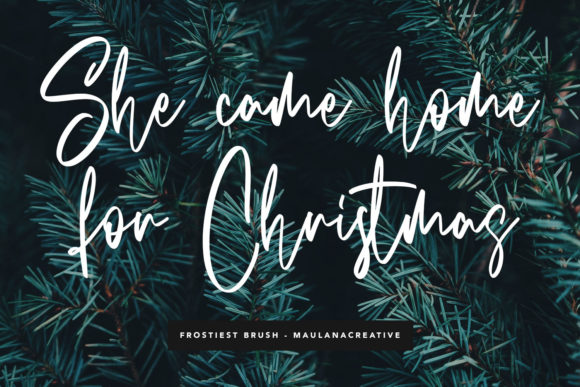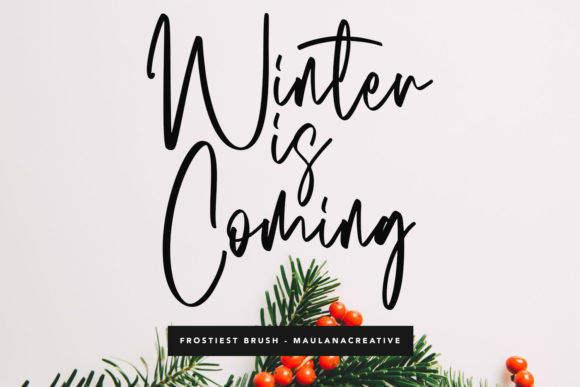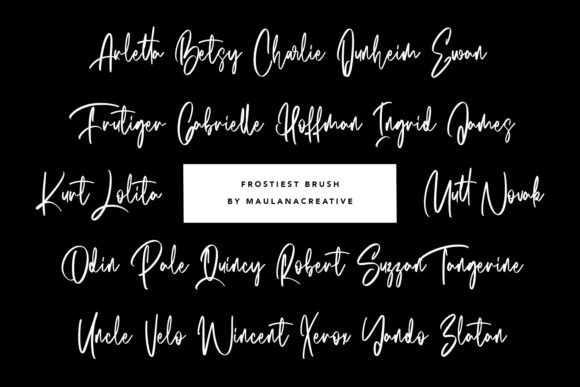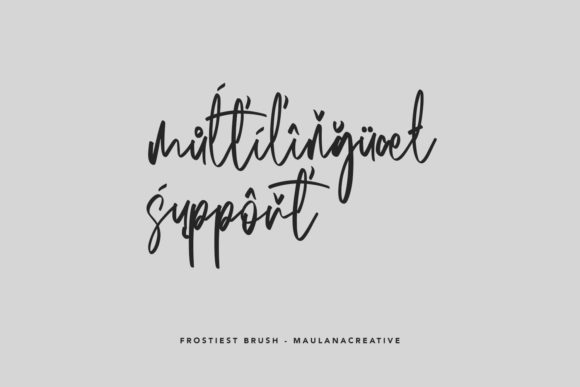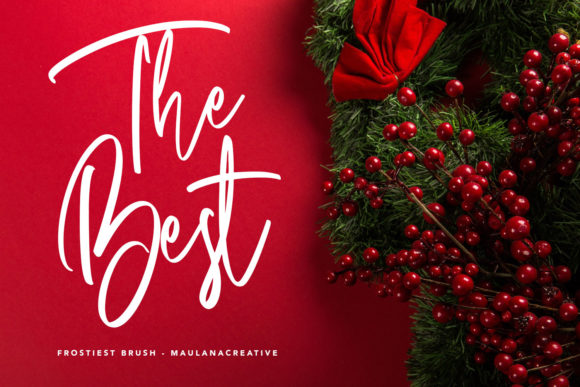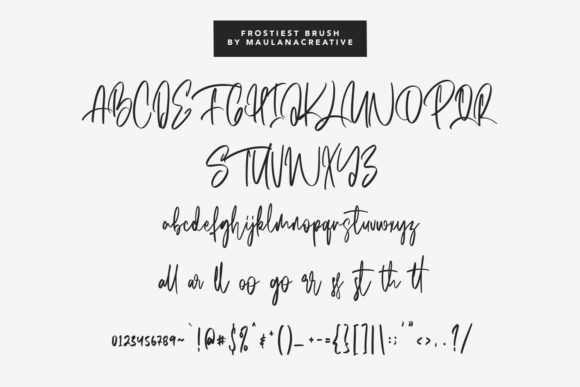
Introduction to Frostiest Brush Font
Frostiest Brush is a relaxed and asymmetrical handwritten font.
Its casual and trendy style makes it adept and suitable to all designs that you wish to develop .
Key Features of Frostiest Brush Font